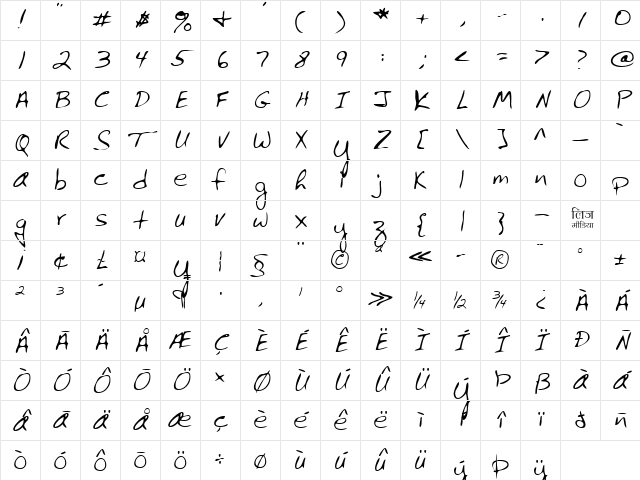
LEHN061 Regular
Design Context for LEHN061
LEHN061 is a composed and adaptable typeface that performs quietly and consistently across a wide range of design contexts.